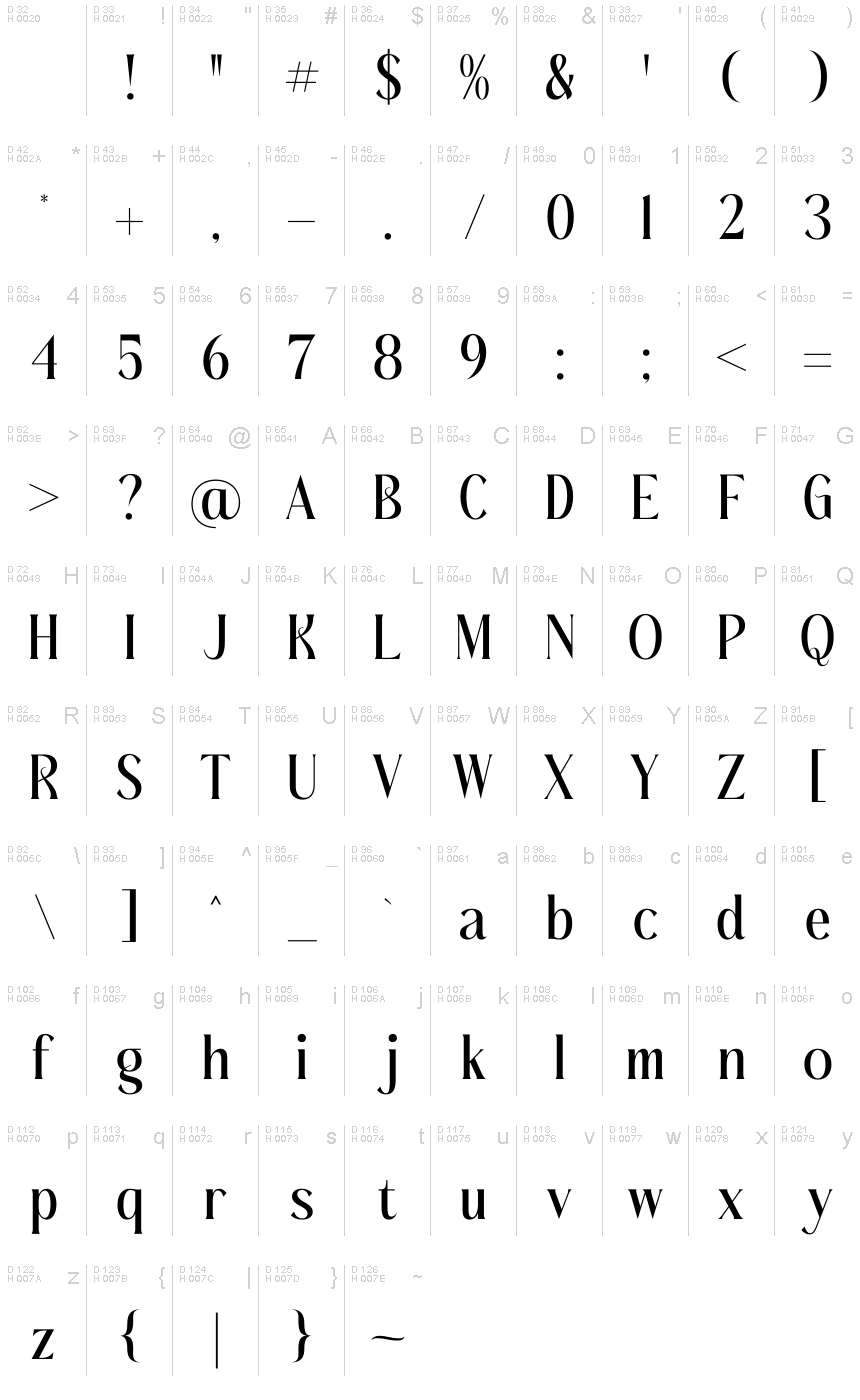
Bashield
Bashield font by Storytype Studio is a stunning serif with a distinctly condensed style. This elegant typeface combines classic serif sophistication with modern flair, creating an aesthetic that's both timeless and contemporary. The narrow design allows for efficient space usage while maintaining readability and charm, making it ideal for fashion magazines, luxury branding, or elegant invitations.
The Bashield font’s strong personality enhances any project needing a touch of elegance and authority. Whether you're seeking to elevate your design with a sophisticated edge or need a free font download for your creative arsenal, Bashield offers versatility and style in one exquisite package. Its unique character ensures it stands out in any context, ensuring your message resonates aesthetically and effectively.